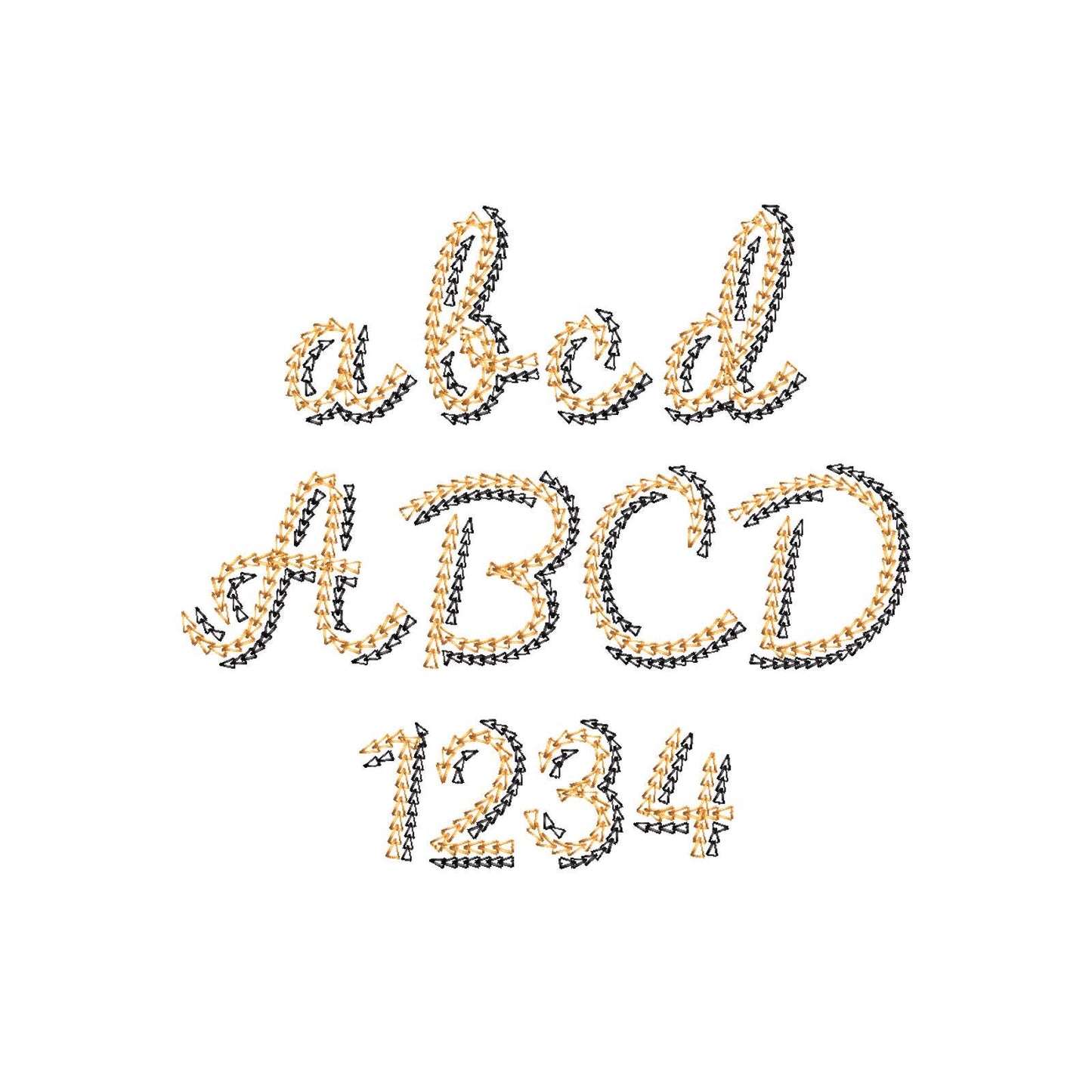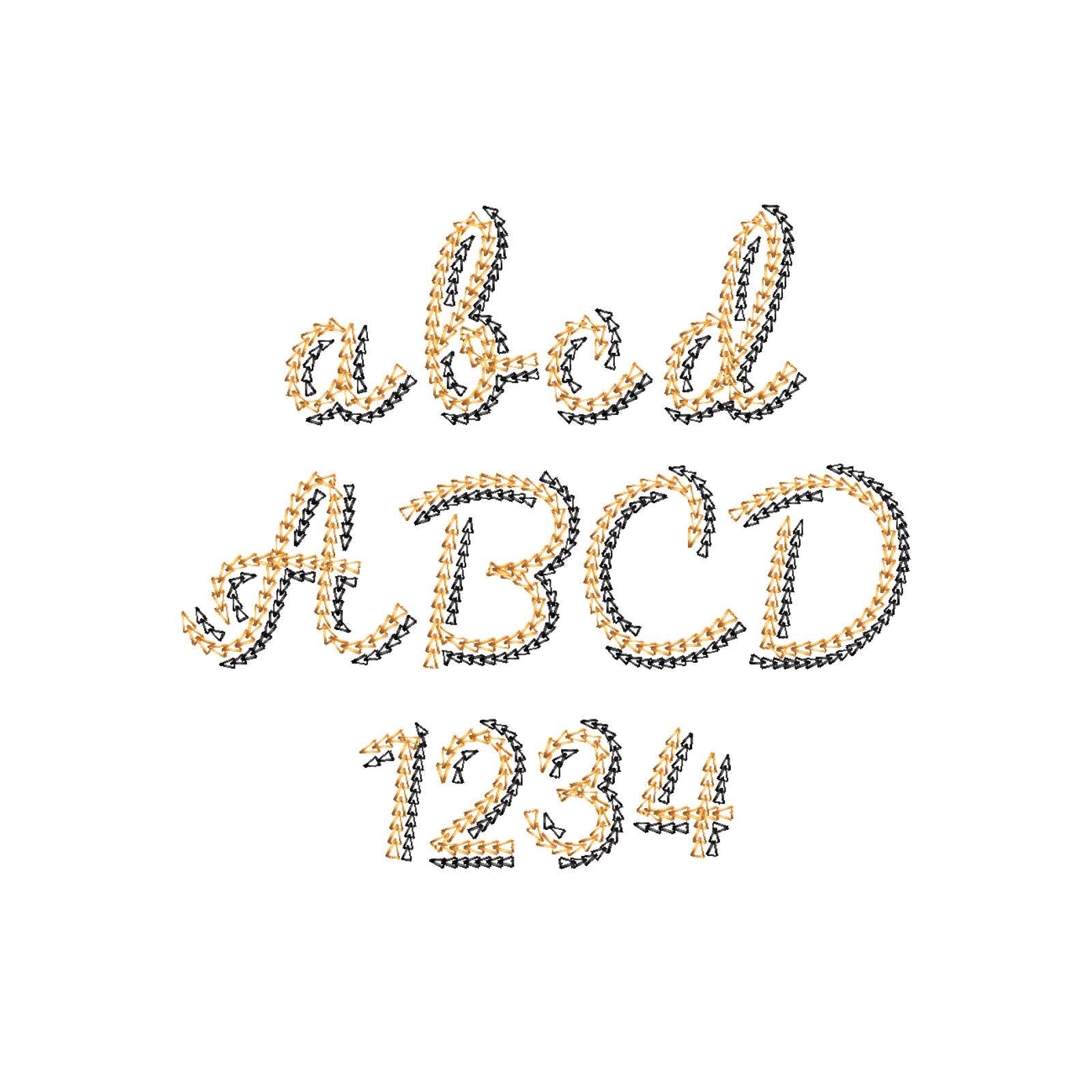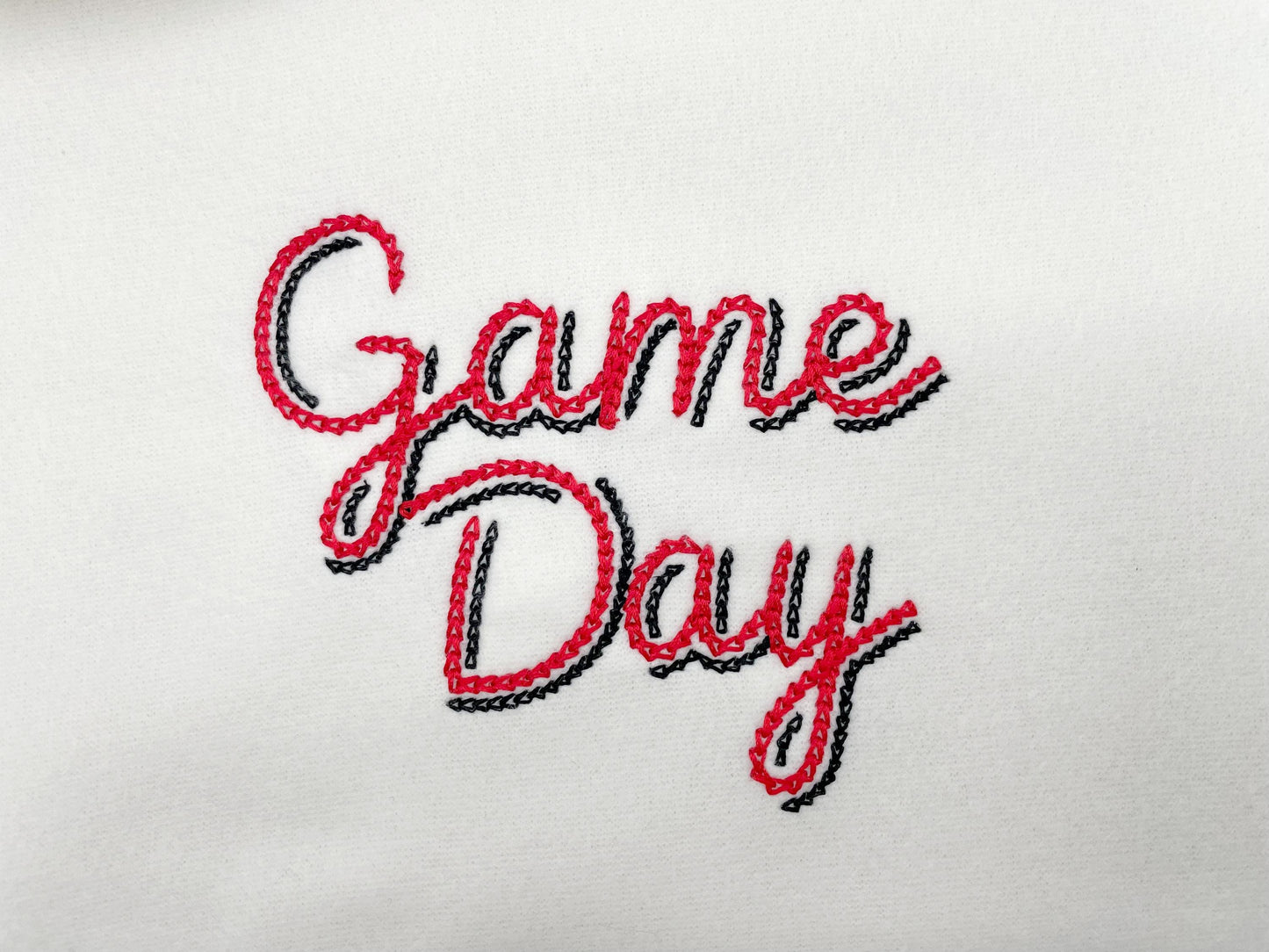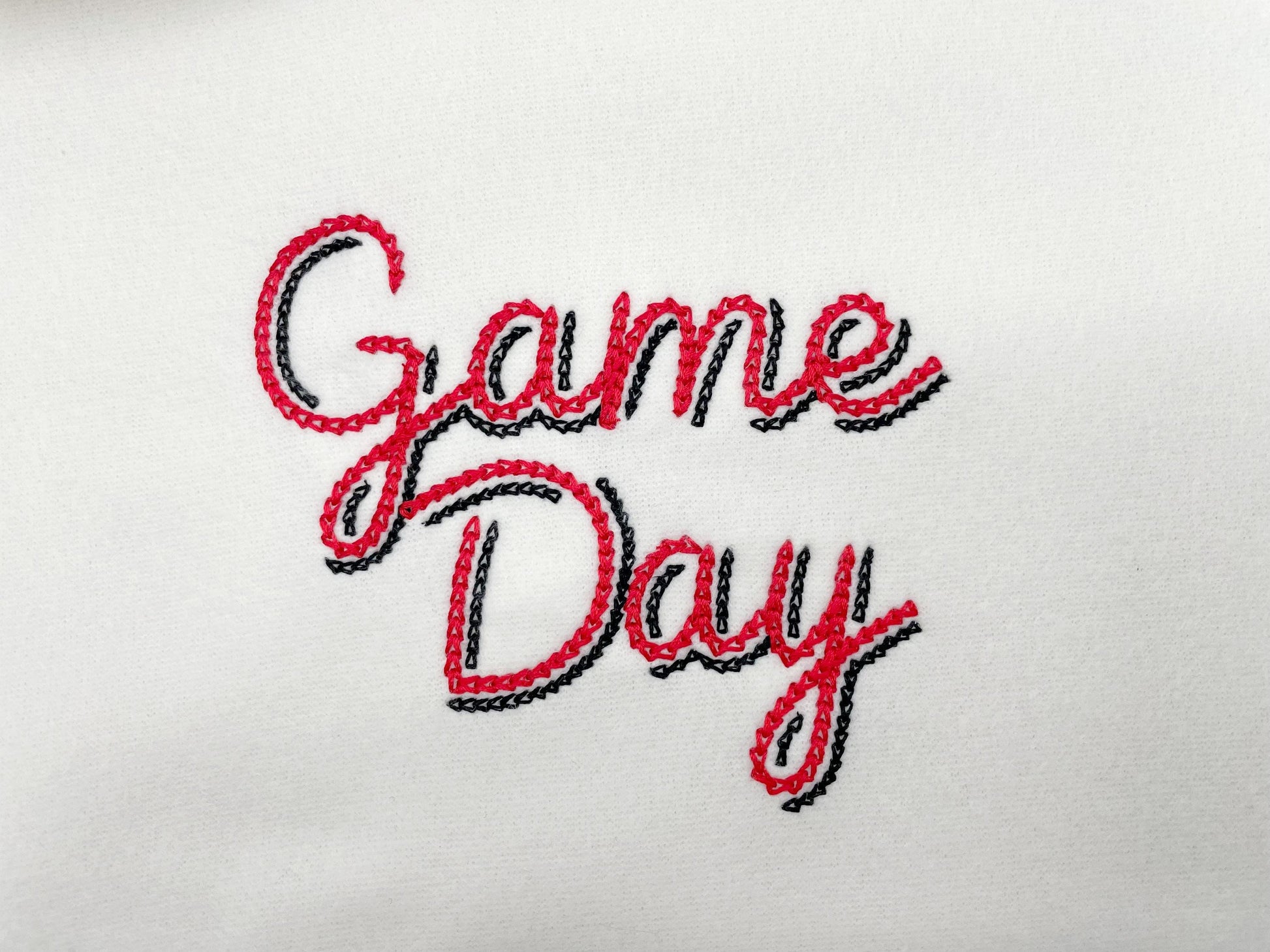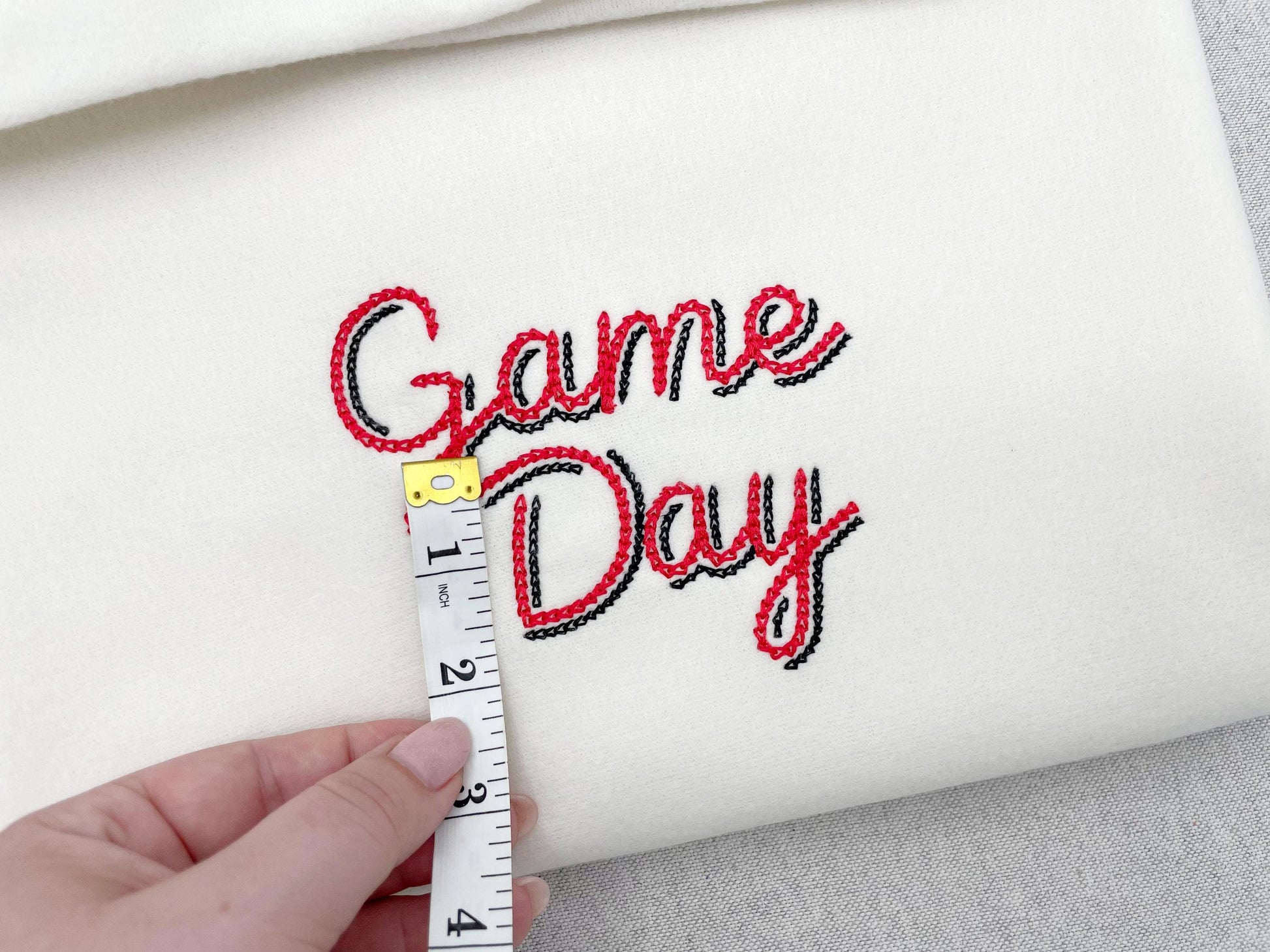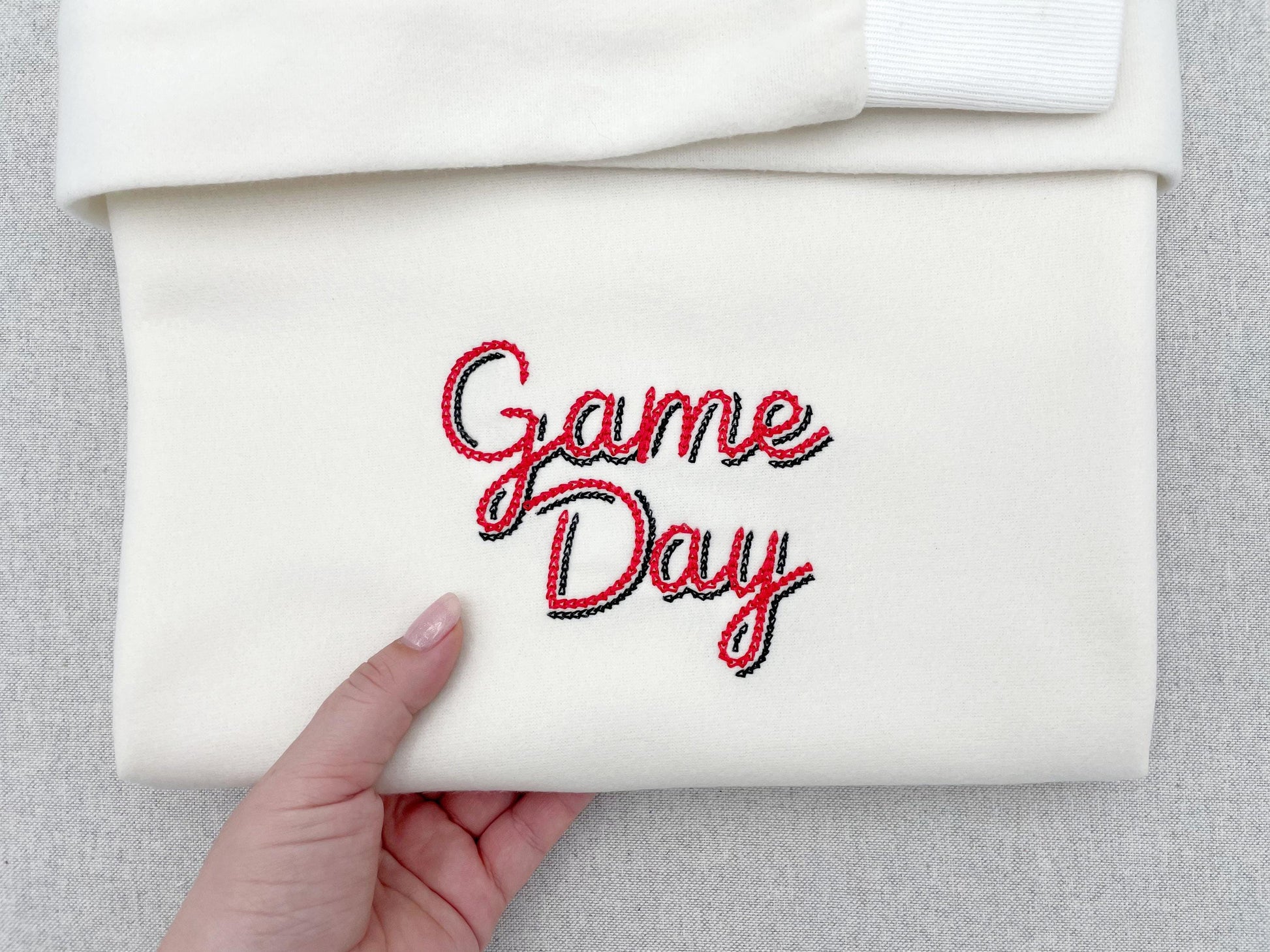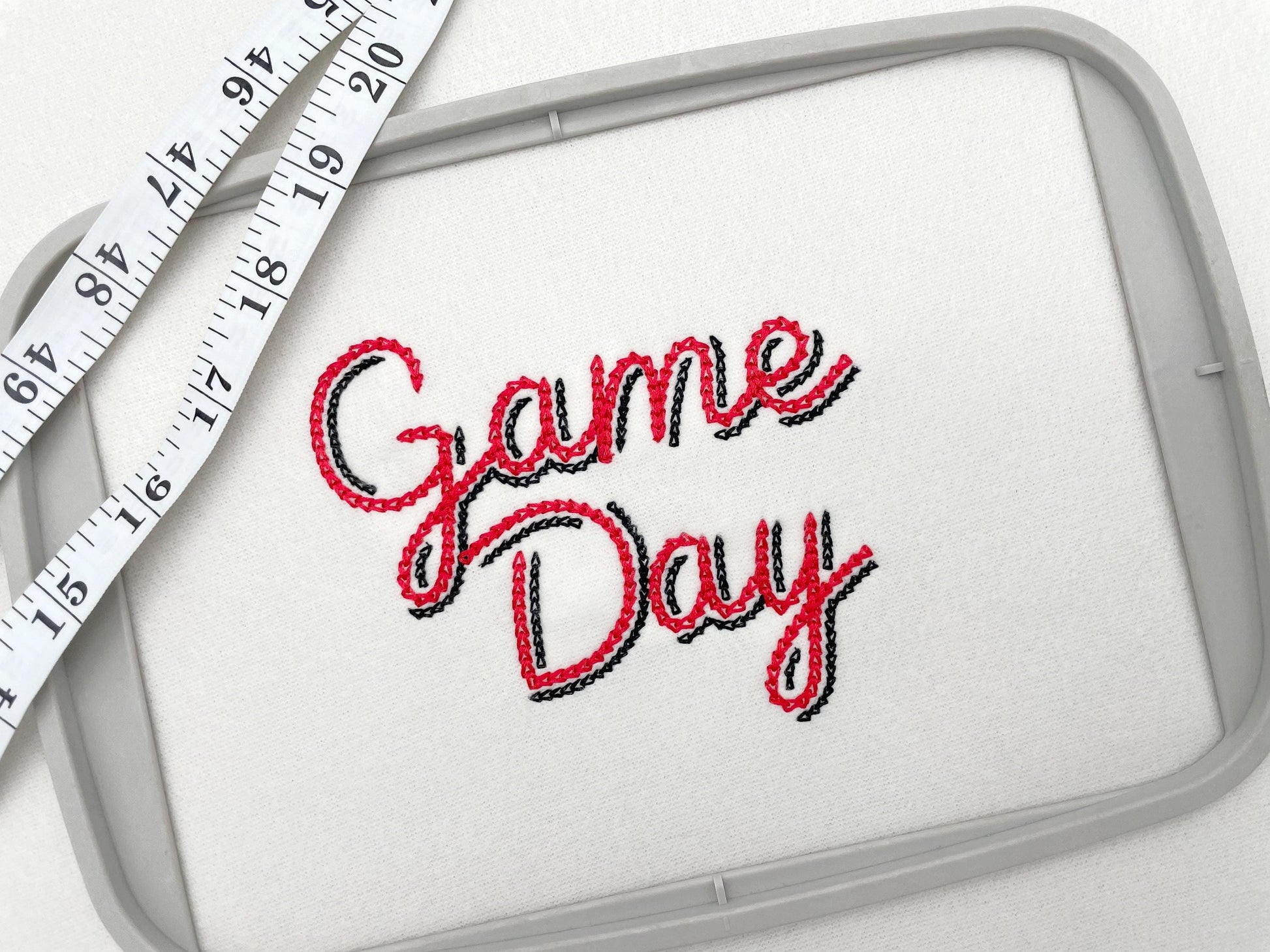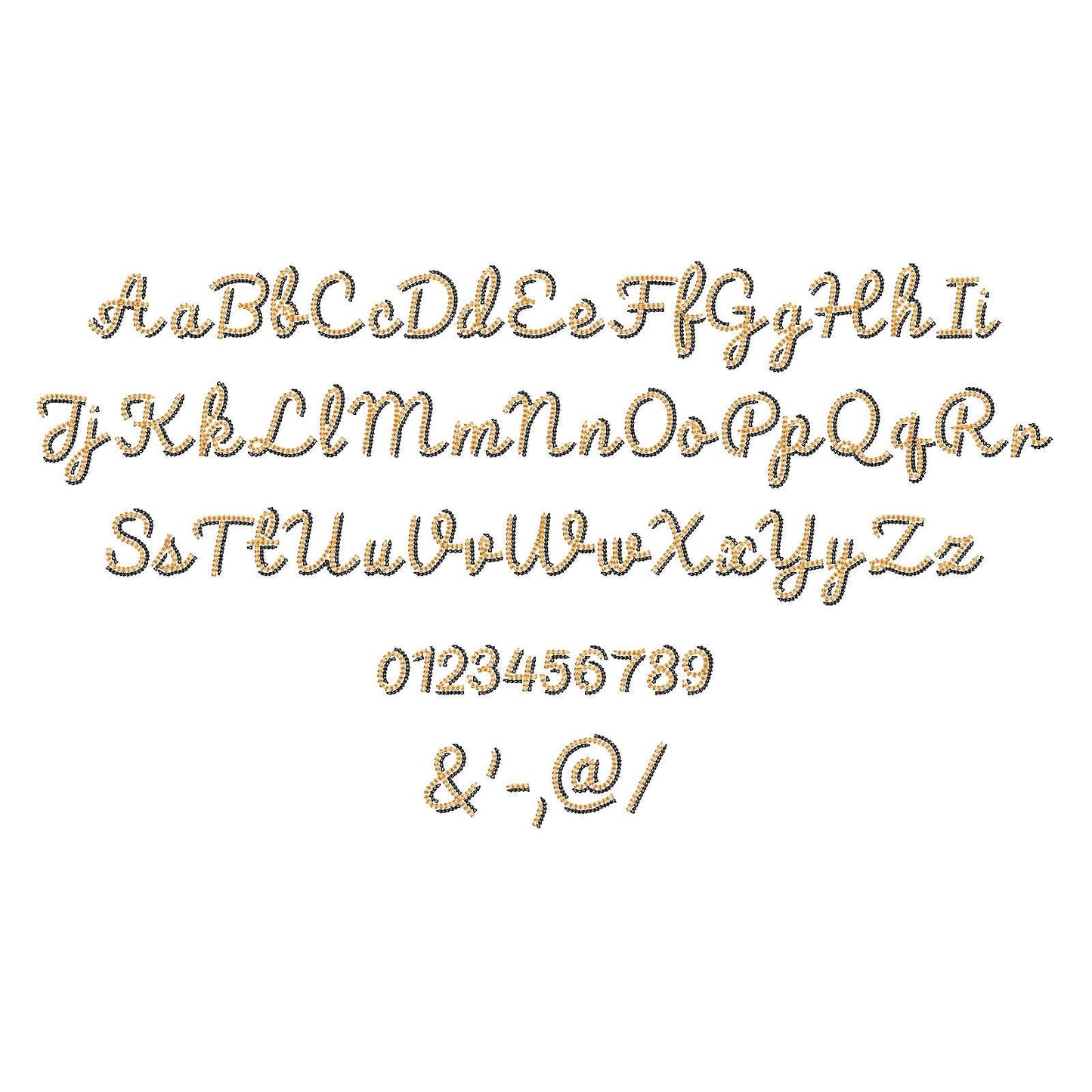
Double Chain Stitch Font Paisley
Or click to open the linkA handwritten line font in a double chain stitch. Pretty for names, monograms and sweaters.
The letters come in four sizes: 1.3, 1.6, 2.1 and 2.6 inches. A double chain stitch line forms each handwritten letter. Includes uppercase and lowercase letters, numbers 0 to 9 and punctuation.
- Double chain stitch script font
- 4 sizes: 1.3, 1.6, 2.1 and 2.6 in